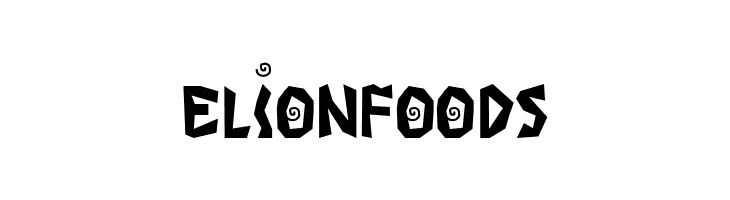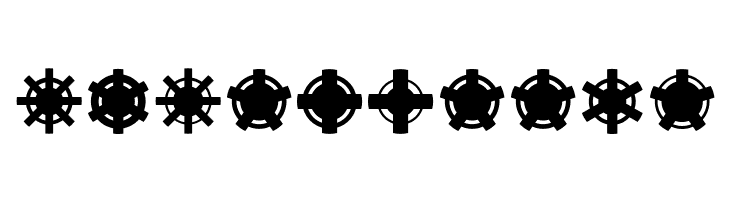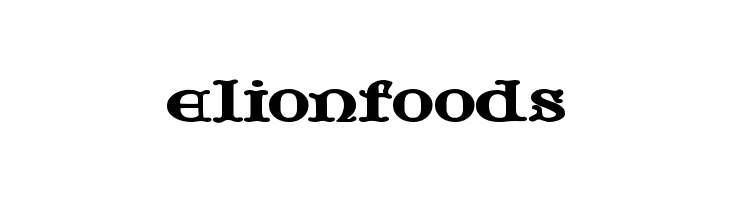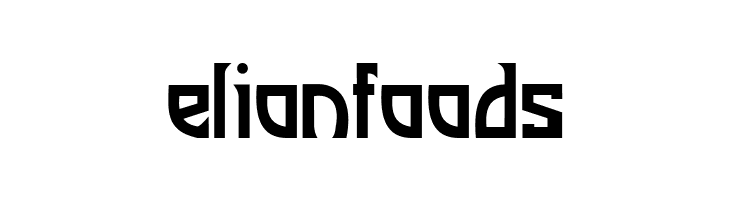
A whimsical, decorative font with playful curls and swirls.
A playful, hand-drawn font with quirky, decorative letterforms.
Hand-drawn display font with illustrated jars and containers as glyphs.
A bold, rounded font with a futuristic and playful design.
A bold, playful handwritten font with thick strokes and a casual style.
Decorative font with floral accents.
An ornate, decorative font with leaf-patterned uppercase letters and bold, artistic lowercase characters.
A bold, decorative font with vintage flair and unique serifs.
A decorative font with letters formed by stylized flamingo illustrations.
A bold, decorative font with vintage circus-inspired detailing.
A playful, balloon-themed decorative font with a whimsical style.
A playful, baseball-themed font with characters enclosed in baseball shapes.
A bold, decorative font with unique cut-out patterns and playful style.
A bold, playful font with zigzag patterns and quirky character designs.
A bold, playful display font with whimsical, decorative elements.
A bold, modern font with geometric shapes and consistent stroke width.
A bold, angular font with a graffiti-inspired style and high contrast.
A bold, playful font with quirky decorative elements and a lively style.
A bold, geometric font with sharp angles and consistent stroke width.
A playful, bold font with angular shapes and spiral patterns, perfect for creative projects.
A playful, marshmallow-inspired font with bold outlines and a whimsical style.
A bold, industrial font with uppercase letters in sawblade shapes.
A playful, rounded font with a hand-drawn, cartoonish style.
A playful, balloon-themed font with bold, rounded characters and decorative strings.
A bold, thorny font with sharp, jagged edges for a striking and aggressive look.